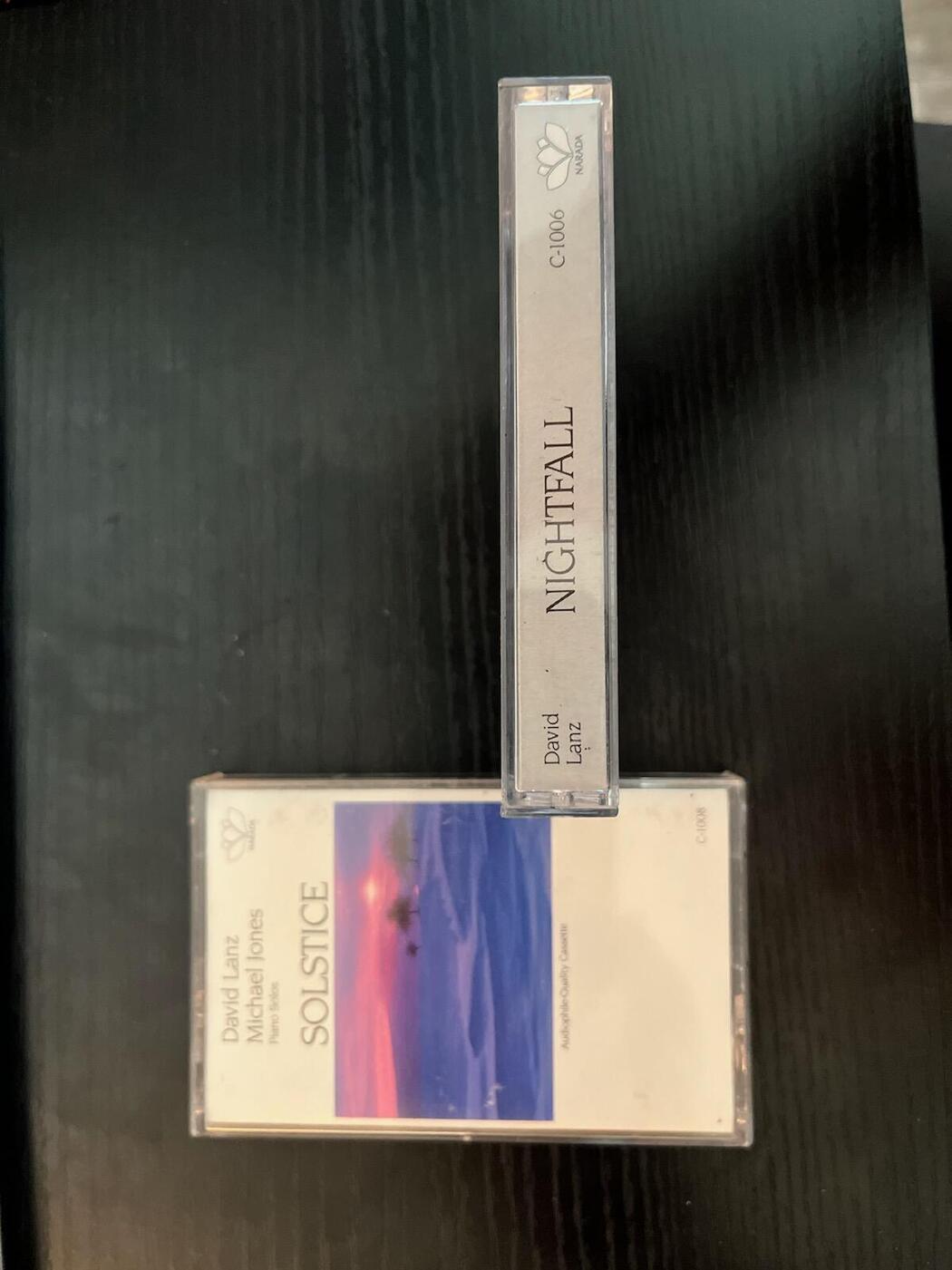
Looking for this title font (David Lanz: Nightfall)
Font is from the mid 80s. There are tons of serif fonts out there that are similar... but the math is off.
Yes. The kerning is terrible on this.
The NIGHTFALL font.